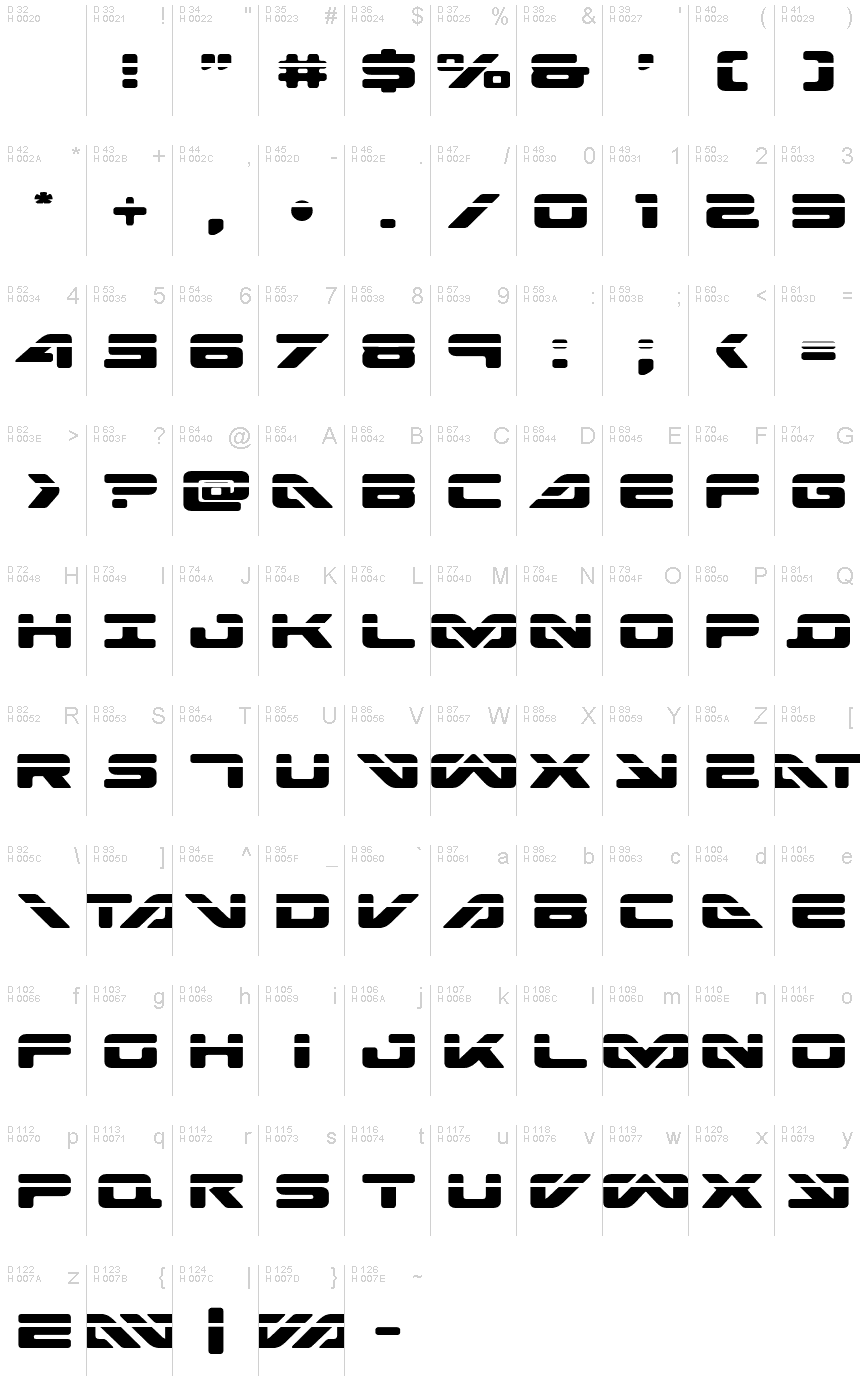
Experience the cutting-edge design of Sea-Dog Laser, the extra-bold and extra-expanded display font from Iconian Fonts. With its futuristic style and sleek lines, this font is perfect for projects that require an innovative and modern touch. Use it to create eye-catching headlines, logos, or branding materials that will leave a lasting impression on your audience. Whether you're designing a technology website, a fashion magazine, or a sports team logo, Sea-Dog Laser will help you stand out from the crowd. Don't settle for ordinary fonts - explore the possibilities of Sea-Dog Laser today!
Sea-Dog Laser